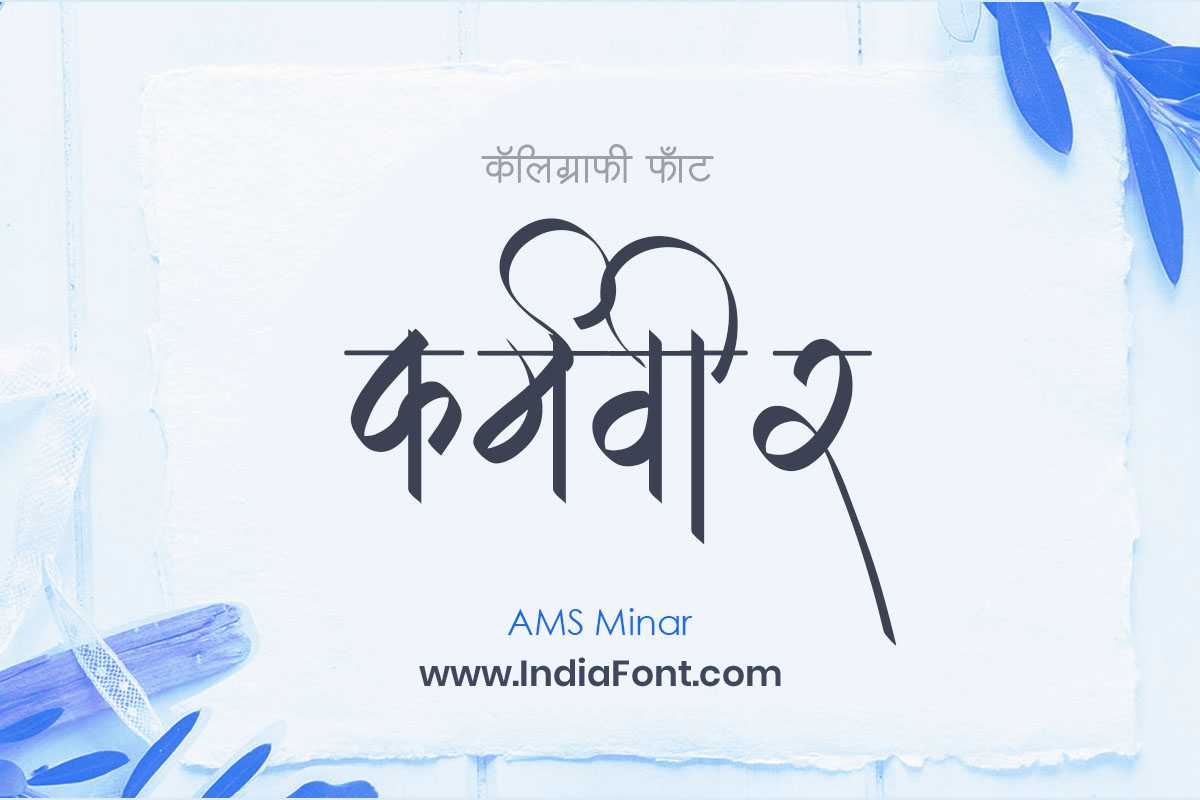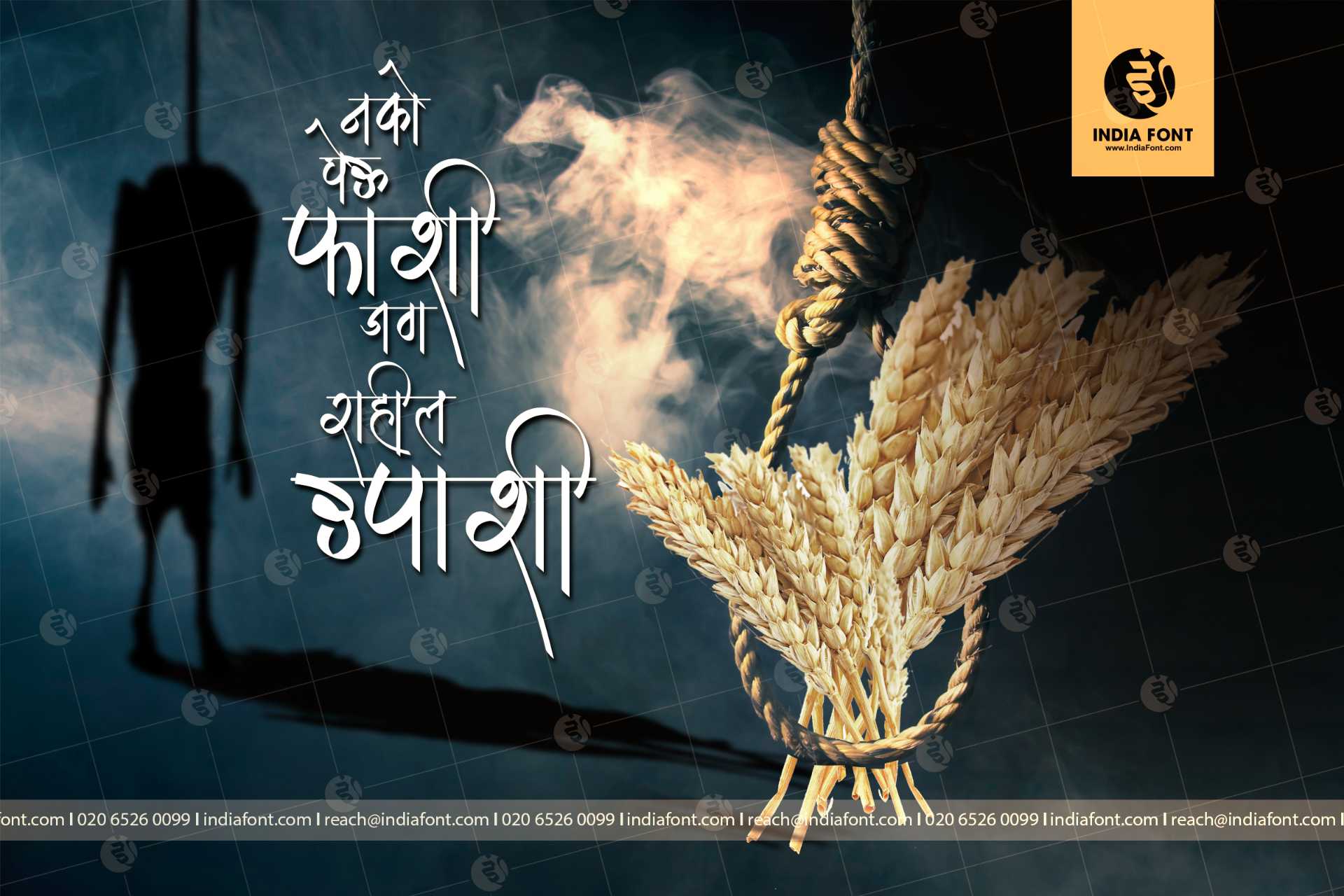
AMS Minar
Step into a world of elegance and sophistication with AMS Minar, a captivating calligraphy font that exudes style and grace. This font is perfect for designers looking for stylish Hindi fonts, calligraphy fonts that make a statement, or fonts that offer free font download options.
About AMS Minar Font
Step into a world of elegance and sophistication with AMS Minar, a captivating calligraphy font that exudes style and grace. This font is perfect for designers looking for stylish Hindi fonts, calligraphy fonts that make a statement, or fonts that offer free font download options. This calligraphy font combines elegance with functionality, making it perfect for various design applications.
AMS Minar is a professionally crafted calligraphy typeface that brings clarity and style to your projects. Designed with attention to detail, it supports hindi and marathi characters flawlessly.
Whether you're working on logos, posters, books-publications, or other creative projects, AMS Minar delivers consistent performance across both digital and print media. This carefully designed typeface ensures readability and visual appeal in all your design work.
About AMS Minar Typography Style
AMS Minar is a professionally crafted calligraphy font that exemplifies modern Hindi typography design. This free font is perfect for designers seeking professional branding and logo design projects.
Available in 1 weight and supporting hindi, marathi scripts, AMS Minar offers exceptional versatility for both digital and print media. Whether you're working on logos, posters, books-publications, this carefully designed typeface ensures consistent quality and professional results across all your typography projects.